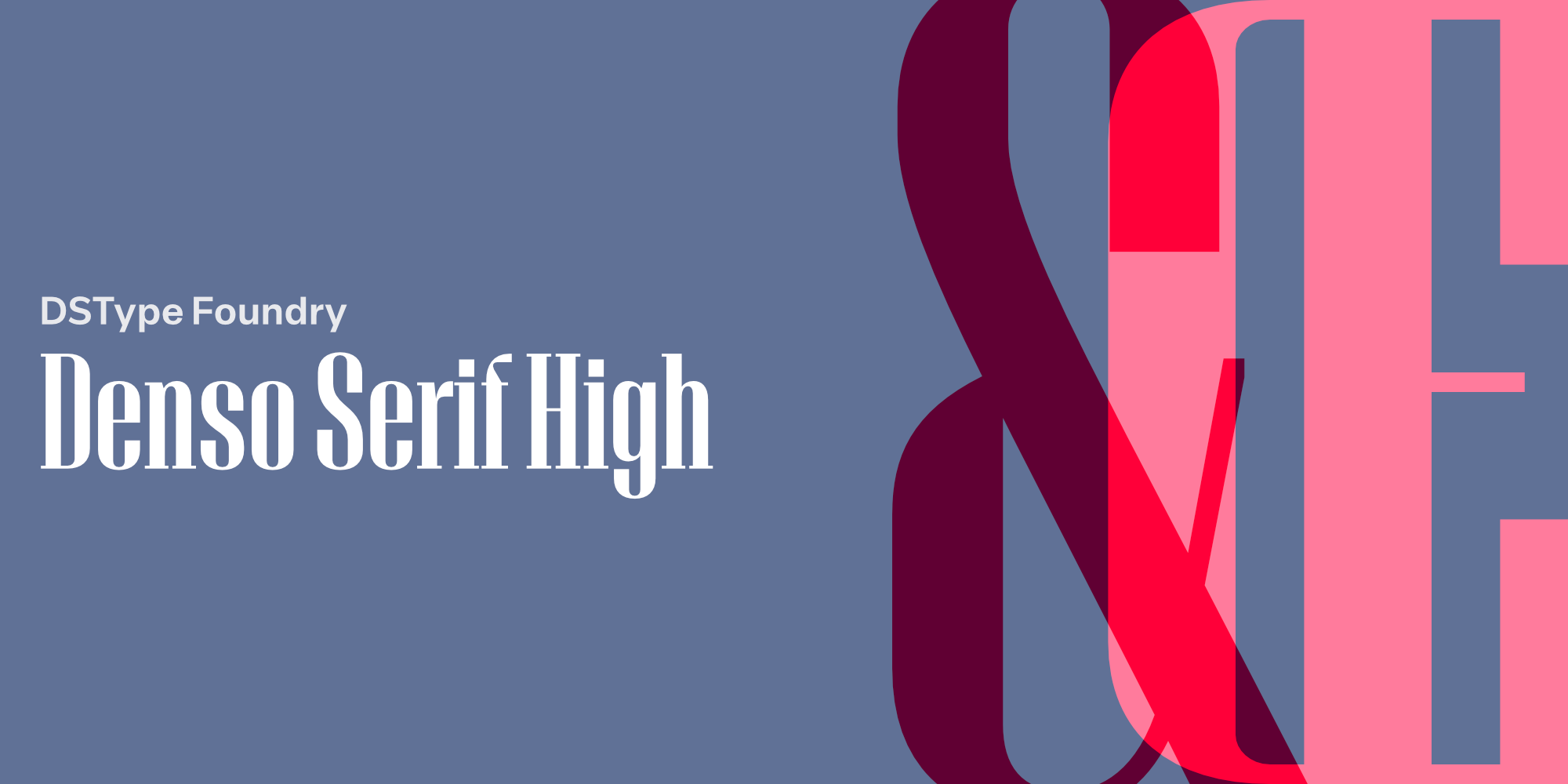
Denso Serif High Font is ideal for premium editorial design, luxury magazine headlines, high-end book covers, sophisticated branding materials, elegant annual reports, upscale restaurant menus, fine art catalogs, premium product packaging, corporate presentations, and exclusive event invitations. This refined serif typeface creates exceptional visual hierarchy in both traditional print and modern digital applications.
What makes Denso Serif High Font exciting is its distinctive high-contrast serif design that combines classical elegance with contemporary sophistication. The font features dramatically contrasted stroke weights with refined serif details that create stunning visual impact and exceptional readability. Its sophisticated character design establishes an atmosphere of premium quality and editorial excellence that captivates professional audiences.
Denso Serif High Font family includes versatile styles: Light, Regular, Medium, Bold, and Black weights, each available in both Roman and Italic versions. Each variant preserves the font's editorial sophistication while offering designers comprehensive flexibility for creating elegant typography systems and professional publication layouts.
This premium serif typeface brings unmatched editorial sophistication to projects requiring authoritative presentation. Whether you're designing luxury publications, high-end branding, or premium editorial content, Denso Serif High Font Free Download delivers exceptional readability and visual distinction. The font's refined proportions and high contrast ensure memorable impact across various professional applications.
Editorial designers and luxury brands recognize how Denso Serif High Font instantly communicates premium quality and editorial authority. Its classical foundation combined with modern refinements makes it essential for sophisticated publishing projects. Download today and enhance your editorial designs with this exceptionally elegant serif typography.